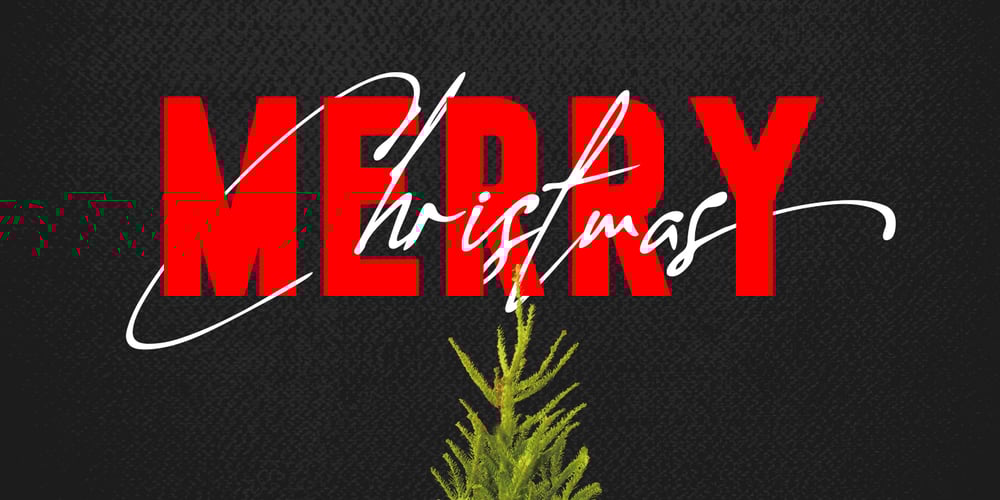
Allison Tessa
Allison Tessa font
Allison Tessa Font Family was designed by Suandana ipandemade and published by madeDeduk. Allison Tessa contains 6 styles and family package options. Allison Tessa is gorgeous signature font and sans serif font with three variation regular, rough and stamp, as well as swashes. Allison Tessa perfect for poster design, book covers, merchandise, fashion campaigns, newsletters, branding, advertising, magazines, greeting cards, album covers, and quote designs and more. If you need anything else or you require an upgraded license please contact dedukvic@gmail.com